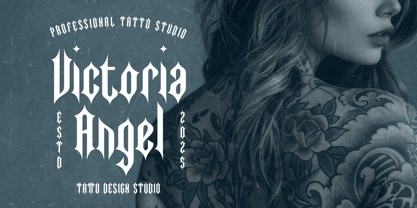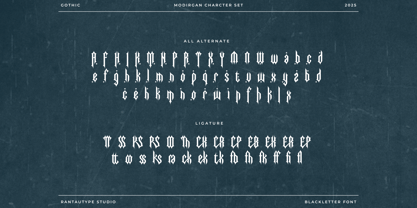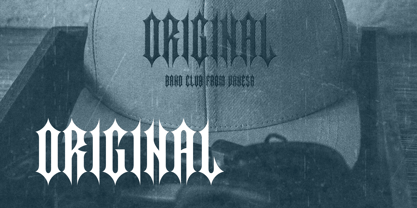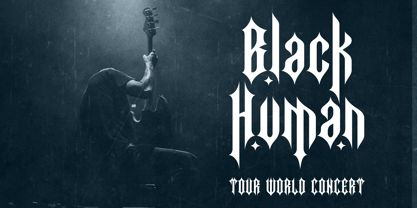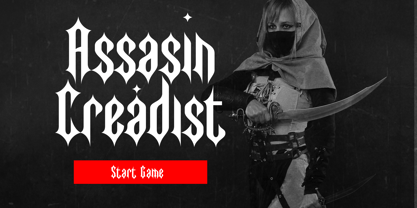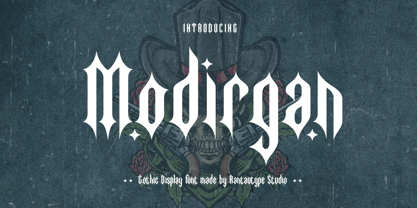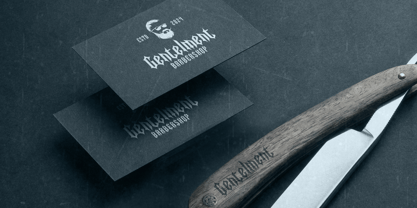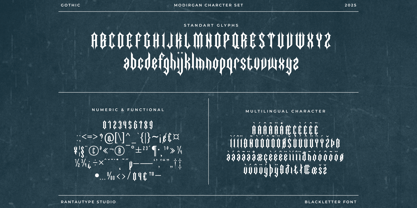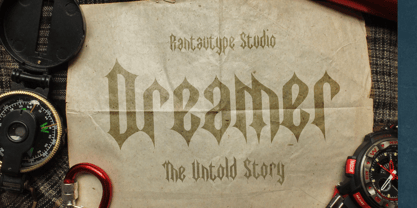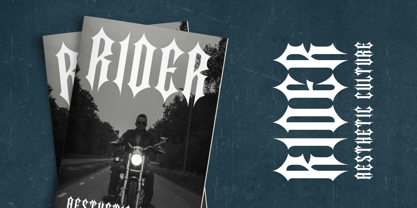
Modirgan
por RantauType
A família de fontes Modirgan foi desenhada por Yudi Pratama Chandra e publicada pela RantauType. Modirgan contém 2 estilos e opções de pacote familiar. Saiba mais sobre esta família
Modirgan is gothic font with metal and victorian style. Modirgan bring sophisticated of gothic font into horror, dark and fantasy visual design. Modirgan is a perfectly choice for any creative endeavor, chic, lifestyle design such as logotype, advertisements, watermark on photography, stationery, branding project, display and magazine, game design, invitation, corporate brand, product design, label, business project and other project with gothic or fantasy taste.